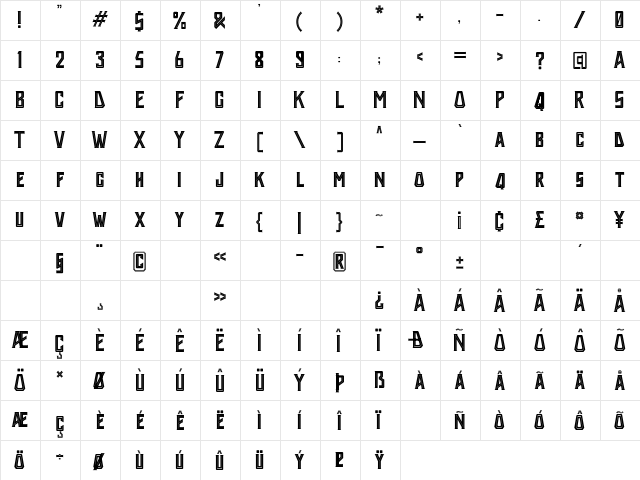
Holyriver Regular
| Designer | Ade Santani |
Design Context for Holyriver Typeface
Holyriver is a composed and adaptable typeface that performs quietly and consistently across a wide range of design contexts.